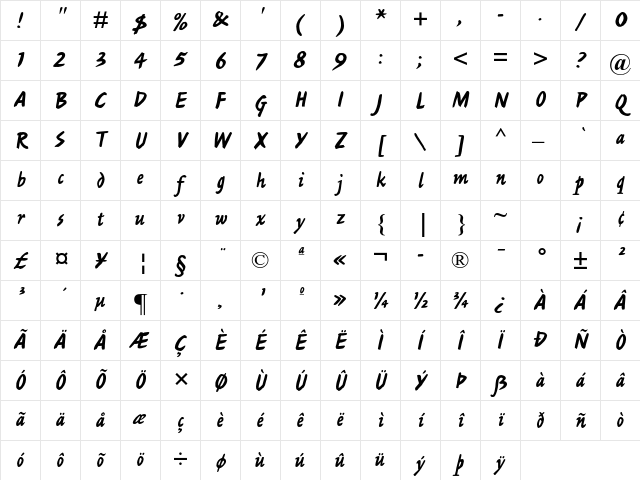
Ashley Script MT Std Regular
Designer: Ashley Havindon
Complete Ashley Script MT Std Regular glyph index. Displaying only characters natively supported by Ashley Script MT Std Regular font.
Design Context for Ashley Script MT Std
Ashley Script MT Std flows with the natural rhythm of handwritten lettering, making it ideal for designs that call for warmth and personal expression.
Font Pairing: Combine Ashley Script MT Std with a simple geometric sans for maximum contrast - the tension between flowing curves and clean structure is a classic typographic pairing.
Pro Tip: Use Ashley Script MT Std for short runs of text - names, titles, or taglines. Extended body copy in script faces tires the eye quickly.